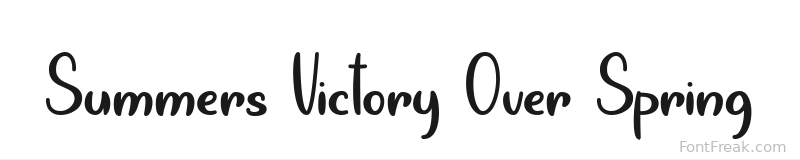
SummersVictoryOverSpring
Summers Victory Over Spring
About SummersVictoryOverSpring
SummersVictoryOverSpring is a delightful handwritten font designed by Misti Hammers, falling into the category of decorative scripts. This typeface captures the essence of warmth and creativity, featuring a playful yet elegant aesthetic that is perfect for a variety of design projects. The font boasts a medium stroke weight with subtle variations that lend it a dynamic feel, while the smooth curves and friendly letterforms create a welcoming vibe. The spacing is balanced, ensuring readability without sacrificing its artistic flair, making it versatile for multiple applications.
This font shines in specific use cases such as wedding invitations, where its whimsical nature adds a personal touch to the special occasion. It is also well-suited for greeting cards, lending a heartfelt sentiment to messages. For restaurant menus, SummersVictoryOverSpring infuses a sense of charm and approachability, enticing customers with its inviting style. Additionally, this font works wonderfully for social media graphics, enabling content creators to convey their messages in a visually appealing manner that attracts attention.
Targeting graphic designers, small business owners, and content creators, SummersVictoryOverSpring is a must-have addition to any designer's toolkit. Its unique character and adaptability make it an excellent choice for those looking to stand out in a crowded market.
What sets the SummersVictoryOverSpring font apart is its ability to evoke emotion while maintaining a distinct artistic presence. The combination of elegance and playfulness allows it to resonate with a wide audience, making it a versatile option for anyone looking to add a touch of creativity to their designs. For those interested, the SummersVictoryOverSpring font free download makes it accessible for all, ensuring that anyone can harness its charm for their projects.